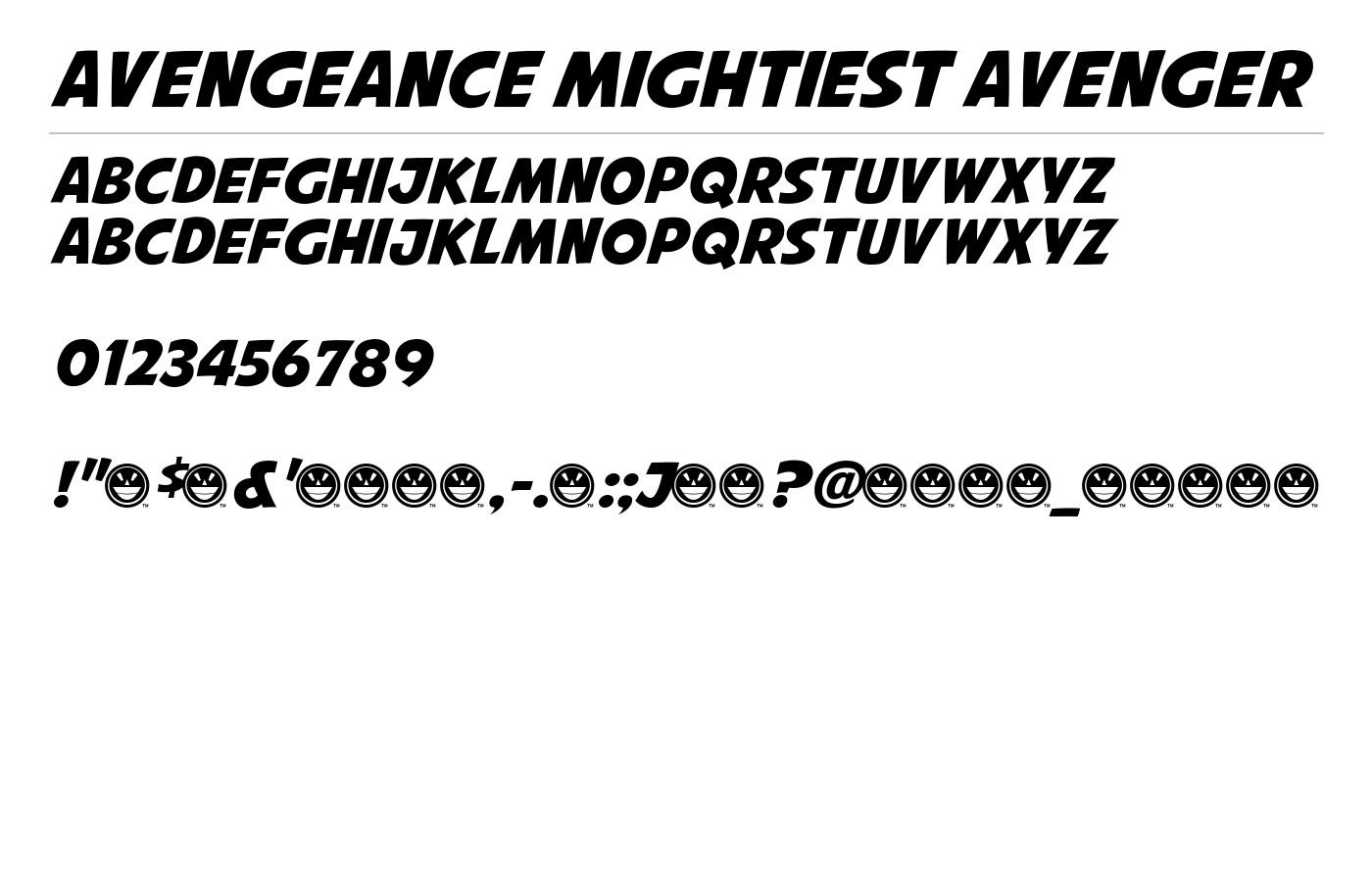
Avengeance Mightiest Avenger is a bold, italic sans serif font with a strong, dynamic feel, perfect for conveying action and energy. Its thick, slightly condensed letterforms with smooth curves and sharp angles create a modern, heroic style that works well for logos, posters, and branding related to entertainment, sports, or adventure themes. This font stands out in headlines or display use where impact and readability are key.
Avengeance Mightiest Avenger Font
About Avengeance Mightiest Avenger Font
| Font family | Avengeance Mightiest Avenger Font |